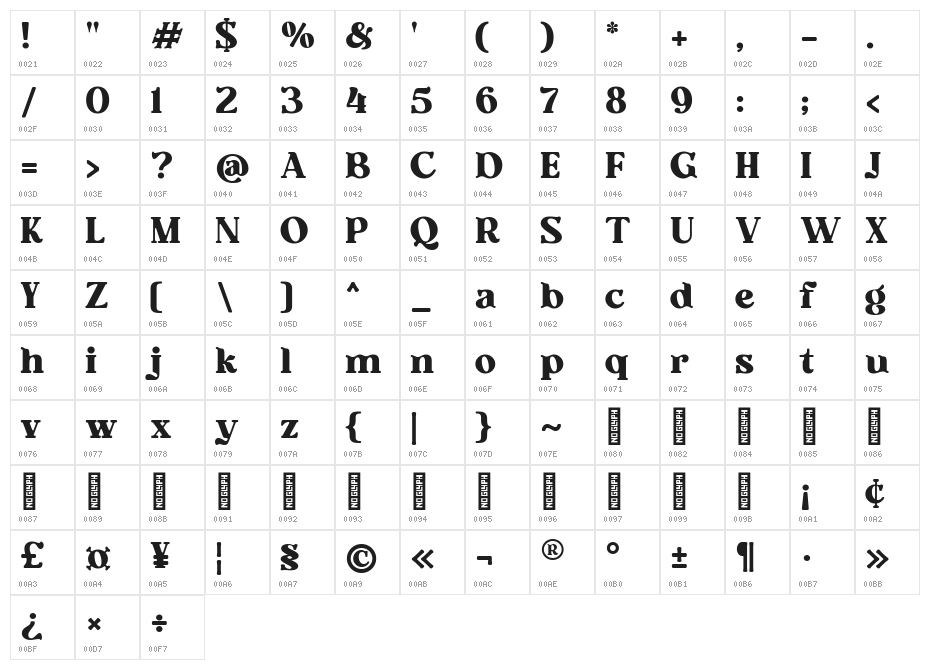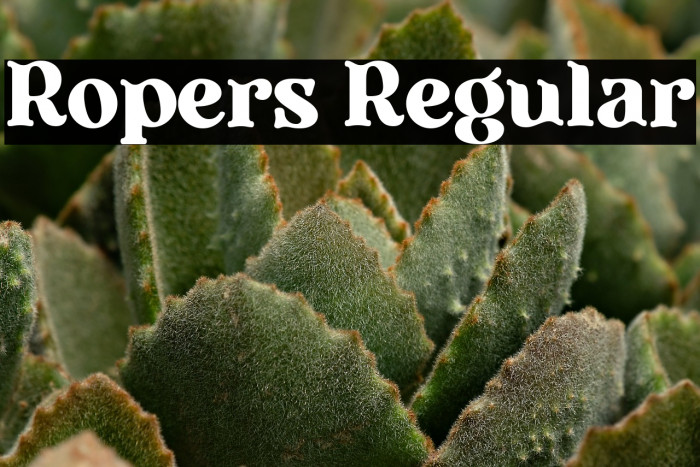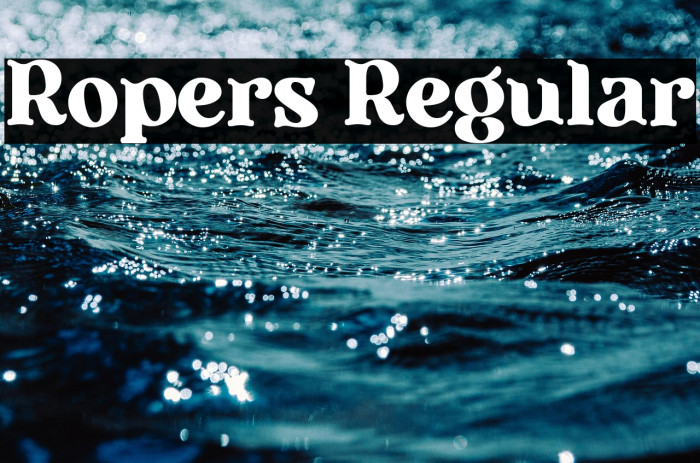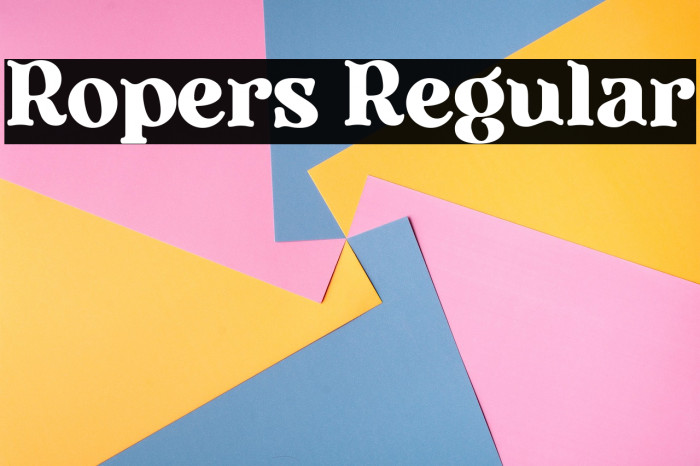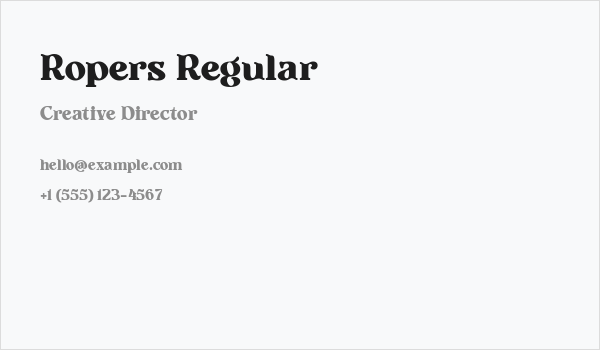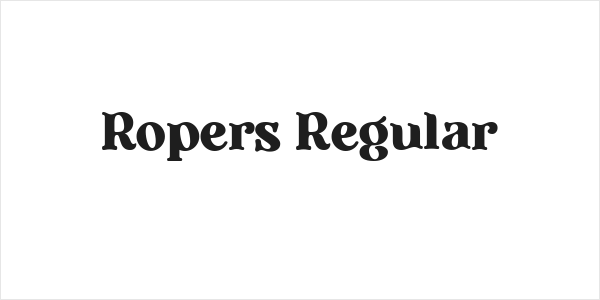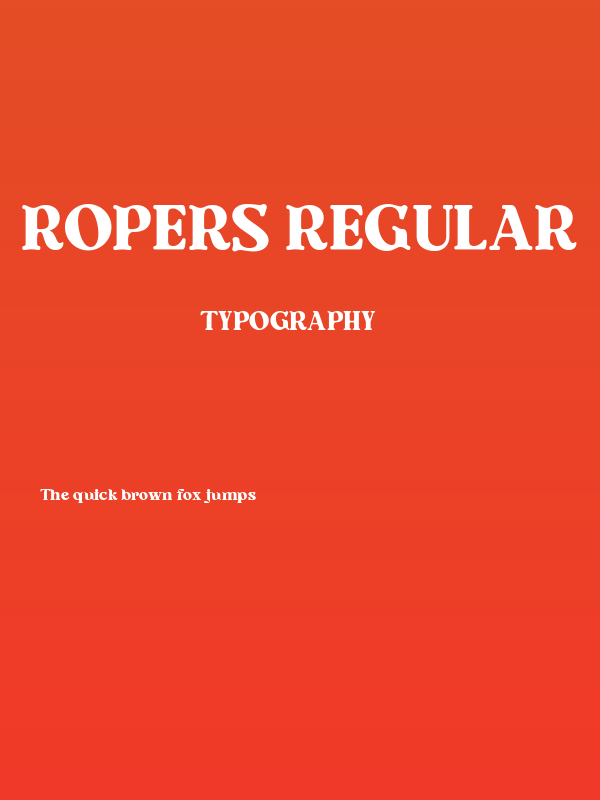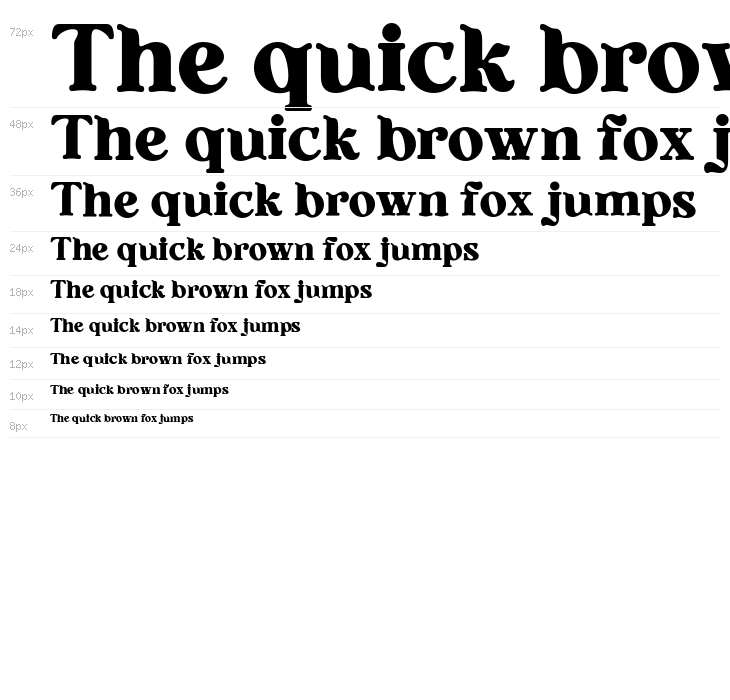
Ropers Regular Font
Ropers Regular Description
This font features a bold and playful design with a strong presence. The characters are thick and rounded, giving it a whimsical and friendly appearance. The uppercase letters are robust and slightly condensed, while the lowercase letters maintain a consistent weight, adding to the font's cohesive look. The numerals are equally bold, ensuring readability and impact. Special characters are designed with the same playful style, making them stand out. This font is ideal for projects that require a fun and engaging touch, such as children's books, playful branding, or eye-catching headlines.
| Proposed Projects | Children's books, playful branding, eye-catching headlines, posters, and invitations. |